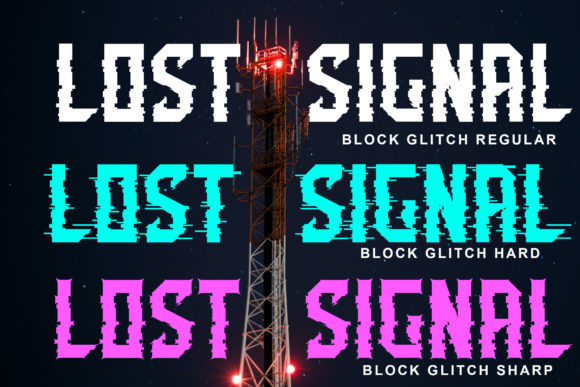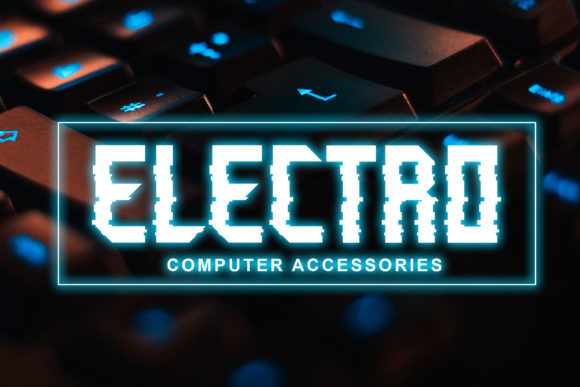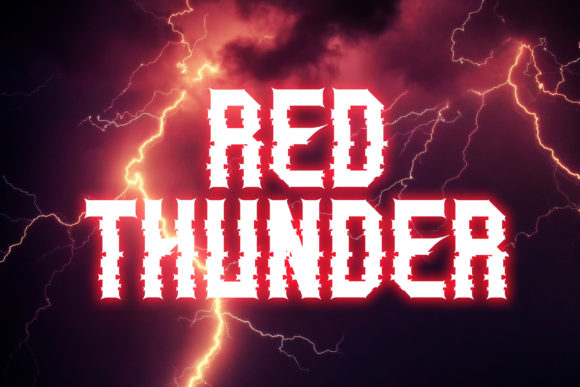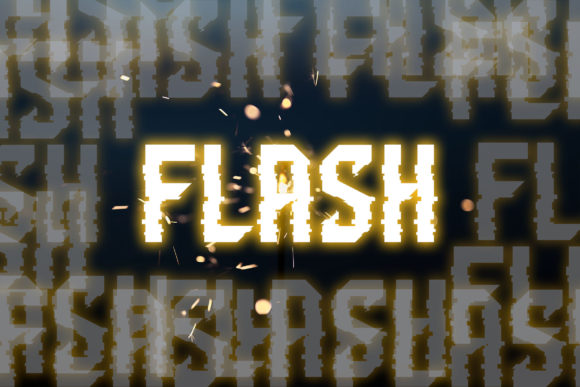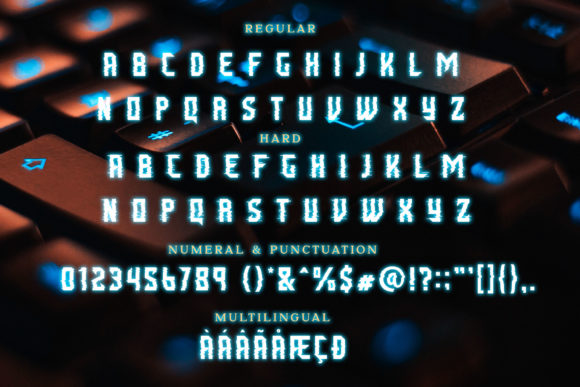
Introducing Glitch Font: The Ultimate Display Font for Bold Designs
Are you tired of using the same old fonts for your designs? Look no further! Glitch Font is here to revolutionize your creative projects with its cool, bold, and assertive style. This display font is perfect for designers and crafters who want to make a statement with their work. In this article, we’ll dive into the world of Glitch Font and explore its features, uses, and benefits.
What is Glitch Font?
Glitch Font is a modern, sans-serif display font that’s designed to grab attention. Its unique, distressed look gives it a bold and edgy feel that’s perfect for creating striking designs. The font is carefully crafted to be highly legible, making it suitable for a wide range of applications, from t-shirts and sportswear to logos, advertisements, and clothing.
Key Features of Glitch Font
- Cool and Bold Design: Glitch Font boasts a unique, glitch-inspired design that’s sure to turn heads.
- Highly Legible: The font is carefully designed to be easy to read, even at large sizes.
- Versatile: Glitch Font can be used for a wide range of projects, from fashion and advertising to branding and packaging.
Uses of Glitch Font
Glitch Font is perfect for designers and crafters who want to add a bold, edgy touch to their work. Here are some ideas for using Glitch Font:
- T-Shirts and Apparel: Create eye-catching t-shirt designs that will stand out from the crowd.
- Sportswear and Accessories: Add a bold, athletic touch to your sportswear and accessory designs.
- Logos and Branding: Use Glitch Font to create a bold, memorable logo that will help your brand stand out.
- Advertisements and Posters: Create striking advertisements and posters that will grab attention.
- Clothing and Fashion: Add a touch of edginess to your clothing and fashion designs with Glitch Font.
Benefits of Using Glitch Font
So why choose Glitch Font for your designs? Here are just a few benefits:
- Unique and Eye-Catching: Glitch Font is sure to turn heads with its bold, glitch-inspired design.
- Highly Versatile: The font can be used for a wide range of projects, from fashion to advertising.
- Time-Saving: With Glitch Font, you can create professional-looking designs in no time.
Tips for Using Glitch Font
Here are a few tips for getting the most out of Glitch Font:
- Experiment with Different Sizes: Glitch Font looks great at large sizes, but it can also be used for smaller designs.
- Combine with Other Fonts: Try pairing Glitch Font with other fonts for a unique, layered look.
- Play with Colors: Glitch Font looks great in bold, bright colors, but it can also be used with more muted tones.
In conclusion, Glitch Font is a cool, bold, and assertive display font that’s perfect for designers and crafters who want to make a statement with their work. With its unique, glitch-inspired design and highly legible style, Glitch Font is suitable for a wide range of projects, from t-shirts and sportswear to logos, advertisements, and clothing. Whether you’re a seasoned designer or just starting out, Glitch Font is a great addition to your font library.